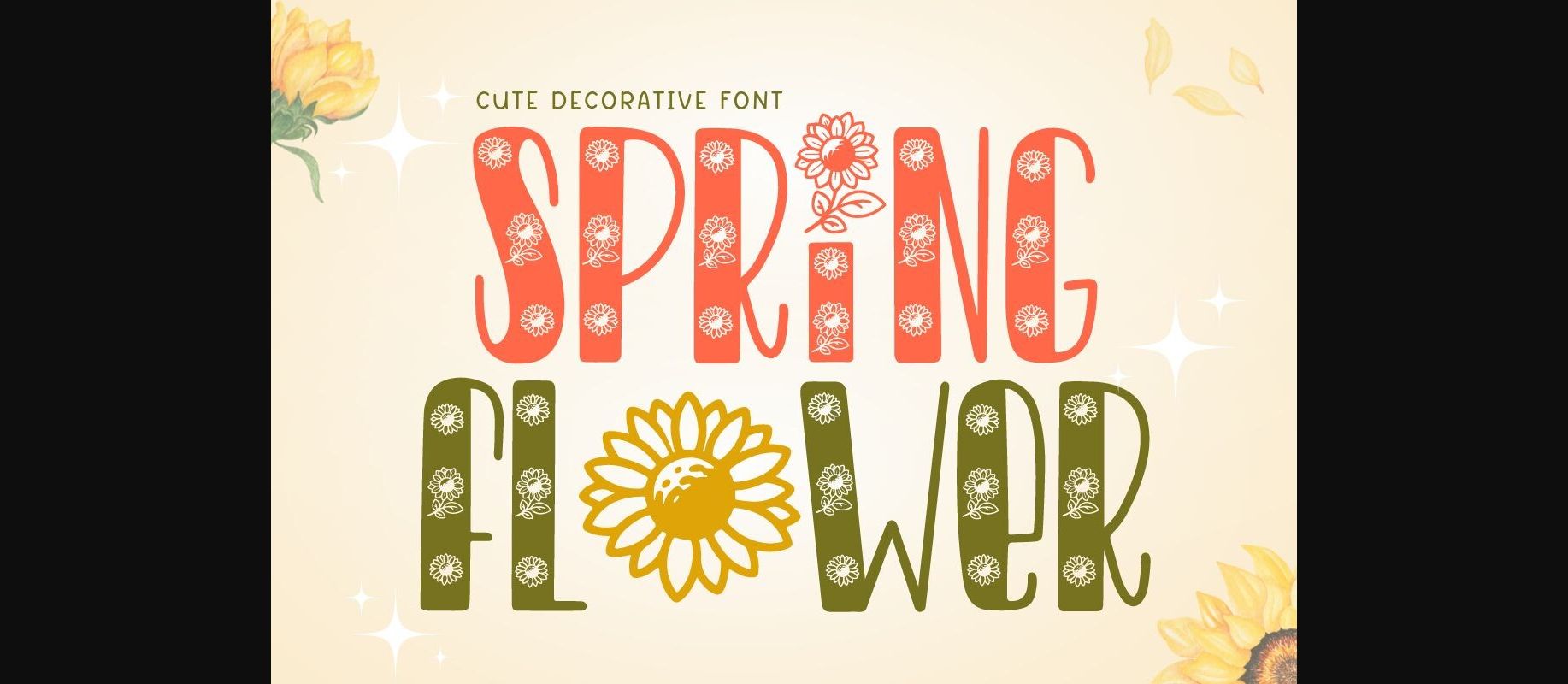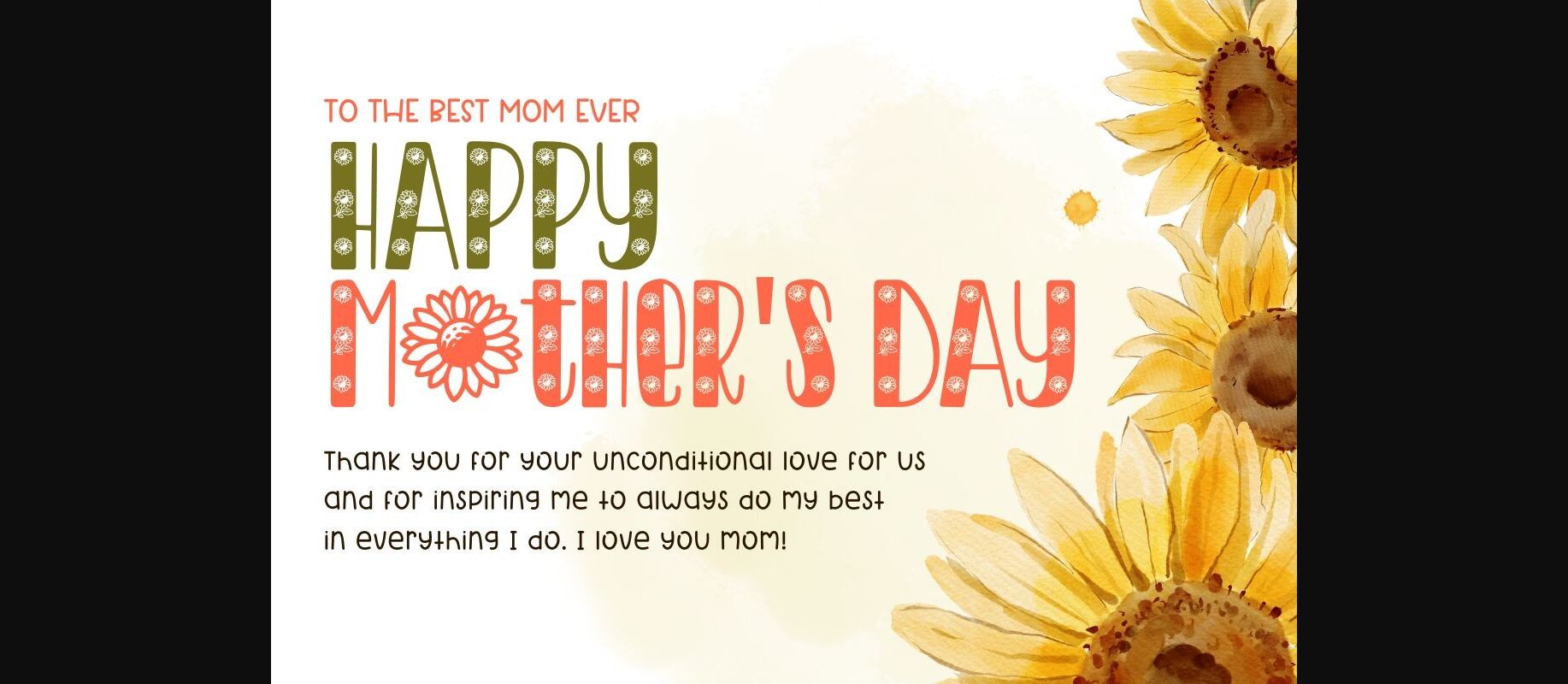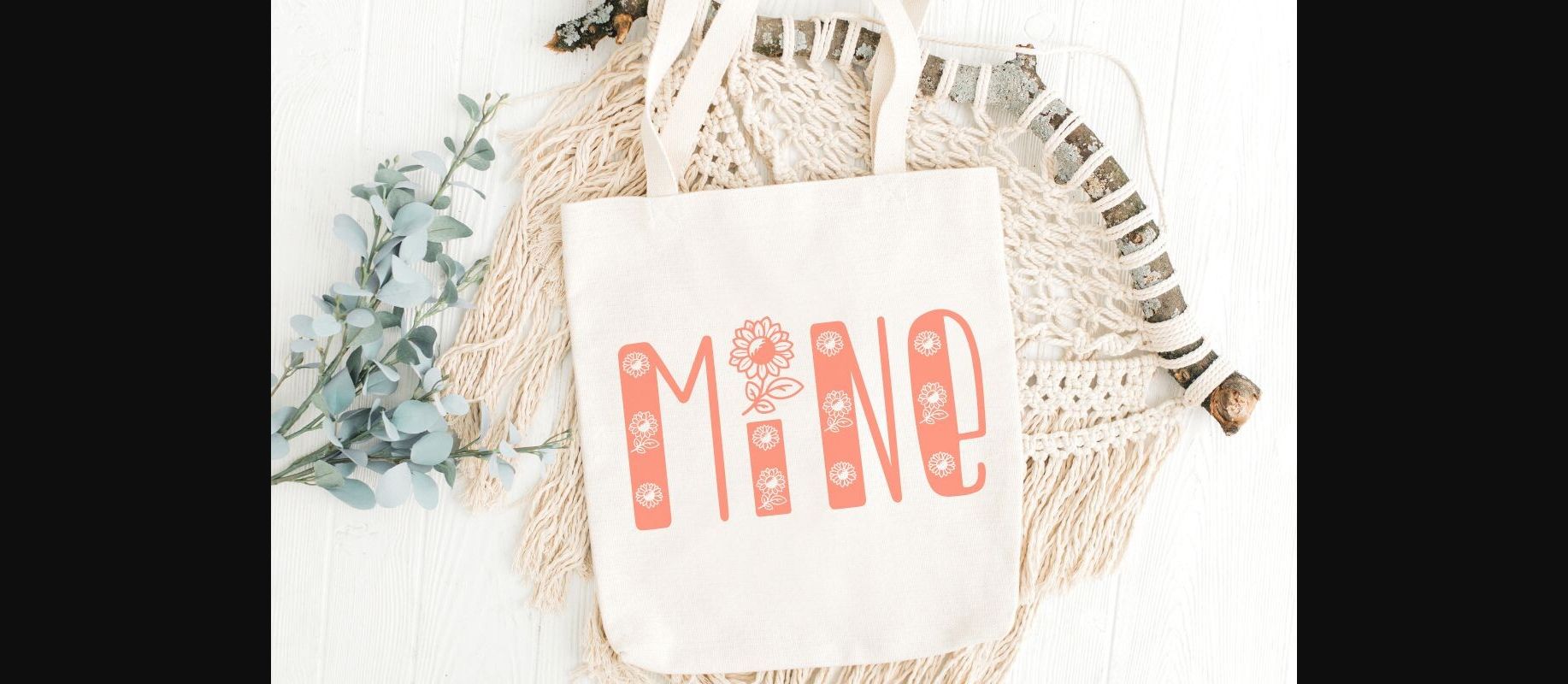
About Spring Flower Font
Spring Flower is a cute decorative font. This font uses flower elements silhouettes combined with handwritten fonts. This font has a quirky style. Perfect for creating a wide variety of new designs to match products such as banners, content, mugs, cards, shirts, stationery, social media posts, and more!